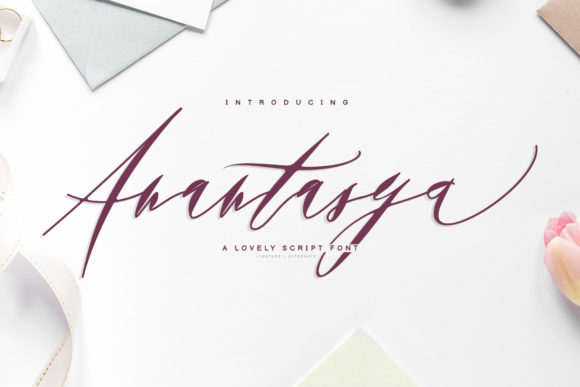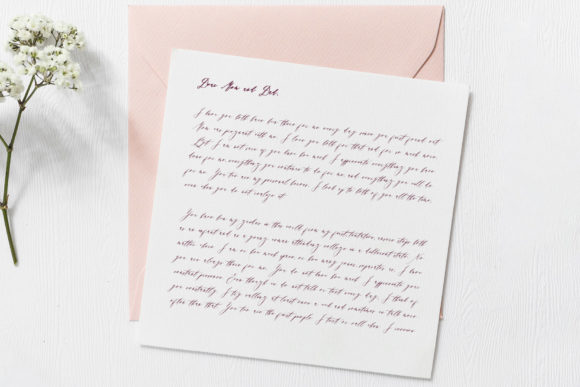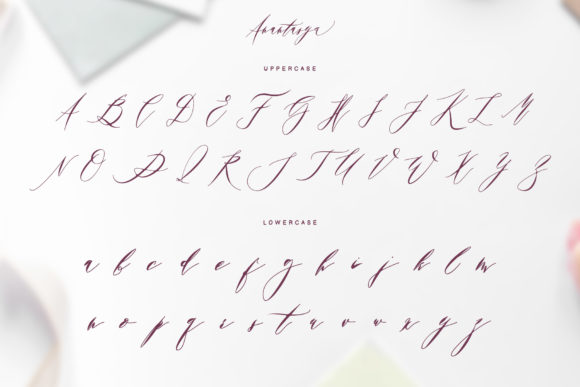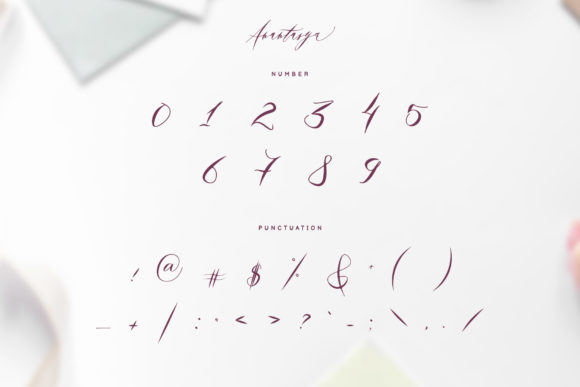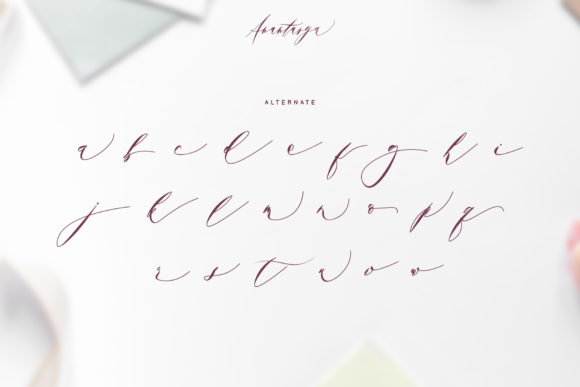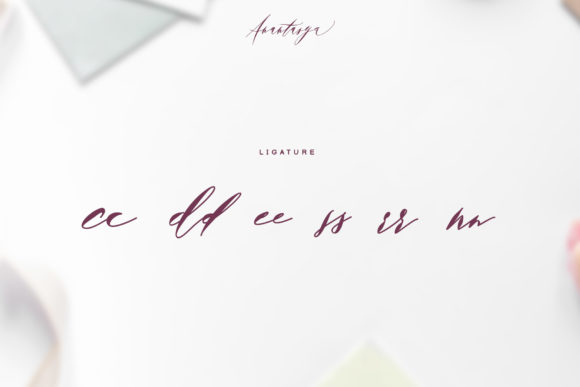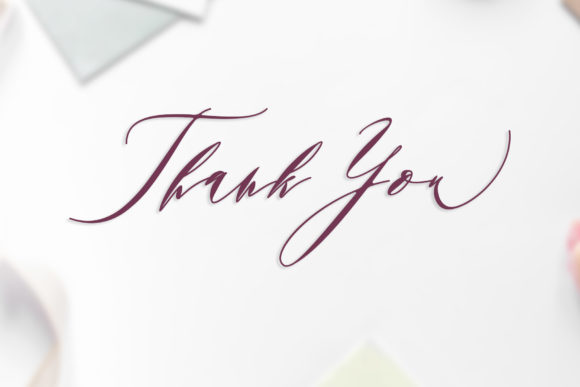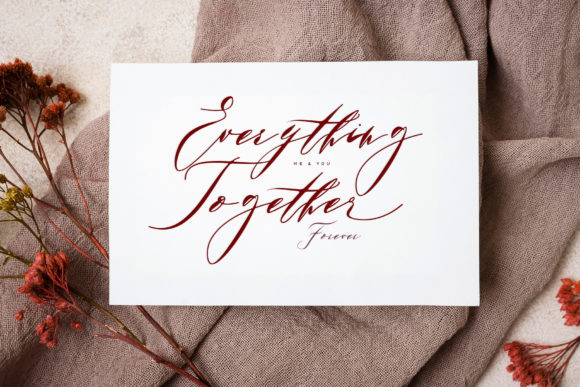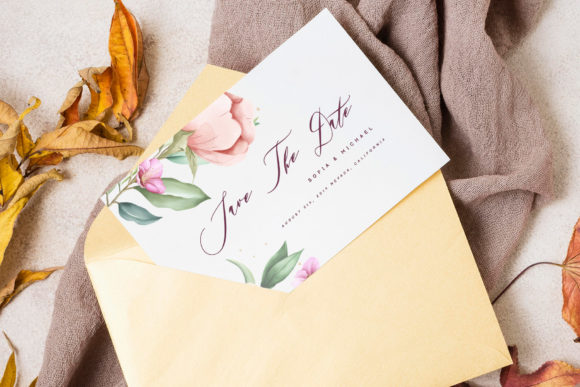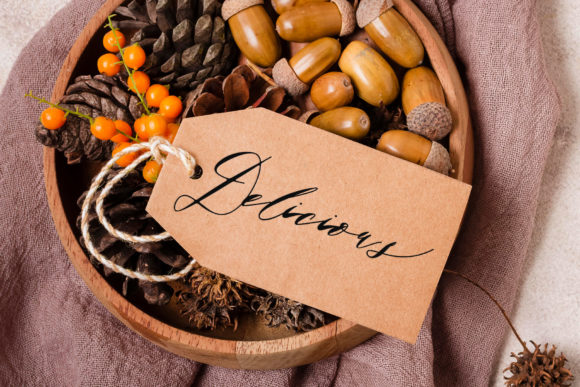
Anantasya Font
About Anantasya Font
Anantasya is a unique handwritten font that combines artistic elegance and emotional fluidity. Each character is meticulously designed, blending harmoniously to offer a perfect choice for a wide range of creative designs. From invitations to greeting cards, logos, and various other design projects, Anantasya has the power to bring your ideas to life.
Thanks to its smooth and graceful appearance, Anantasya adds a refined and distinctive touch to any design. It seamlessly adapts to both formal and informal contexts, integrating effortlessly into a variety of themes and concepts. The flowing strokes and delicate curves create a captivating visual rhythm, capturing the essence of creativity and imagination.
Incorporate Anantasya into your designs, and witness its transformative effect. Whether you are designing for print or digital media, the font’s versatility shines through, enhancing the overall aesthetics and leaving a lasting impact on your audience.
Embrace the enchanting world of Anantasya and breathe life into your most creative ideas. With its captivating and charming nature, it elevates your designs, infusing them with sophistication and beauty. Embrace the artistic finesse of Anantasya and unlock new possibilities for your creative endeavors.